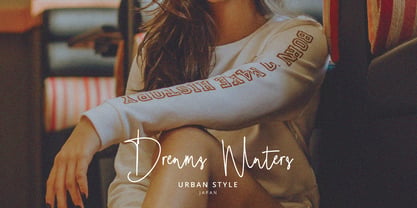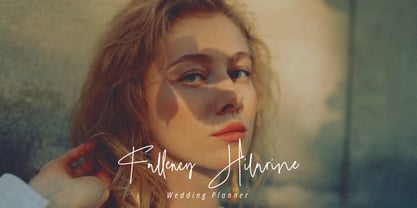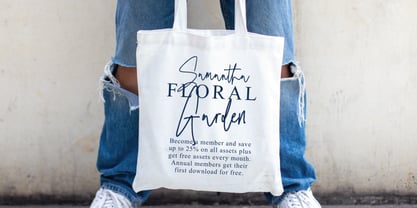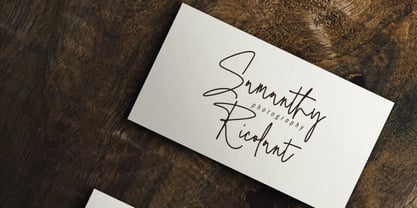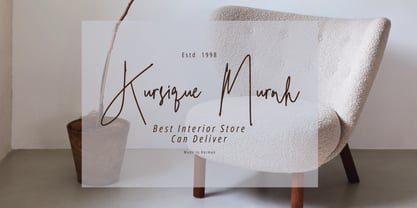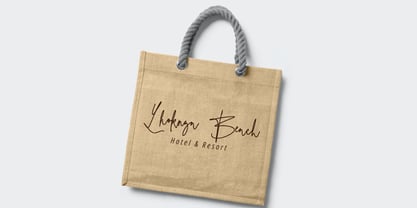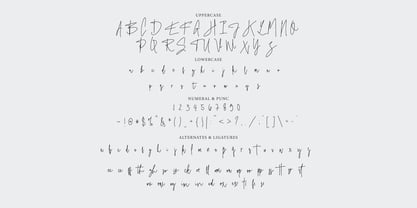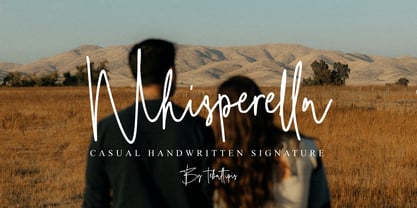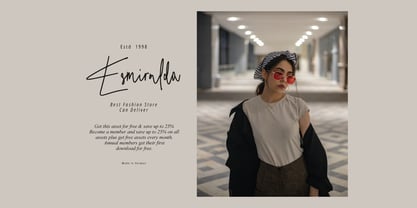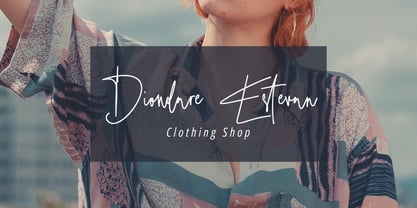
Whisperella Signature
The Whisperella Signature Font Family was designed by Dzulka Elfira and published by Tebaltipis Studio. Whisperella Signature contains 1 styles. More about this family
Whisperella Signature with a handmade Signature style, decorative characters and a dancing baseline! Whisperella Signature with 130+ glyphs. The alternative characters were divided into several Open Type features such as Swash, Stylistic Sets, Stylistic Alternates, and Ligature. The Open Type features can be accessed by using Open Type savvy programs such as Adobe Illustrator, Adobe InDesign, Adobe Photoshop Corel Draw X version, And Microsoft Word. And this Font has given PUA unicode (specially coded fonts). so that all the alternate characters can easily be accessed in full by a craftsman or designer.